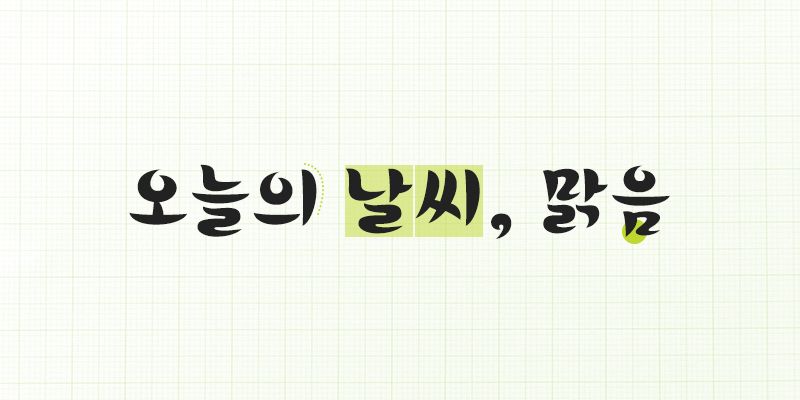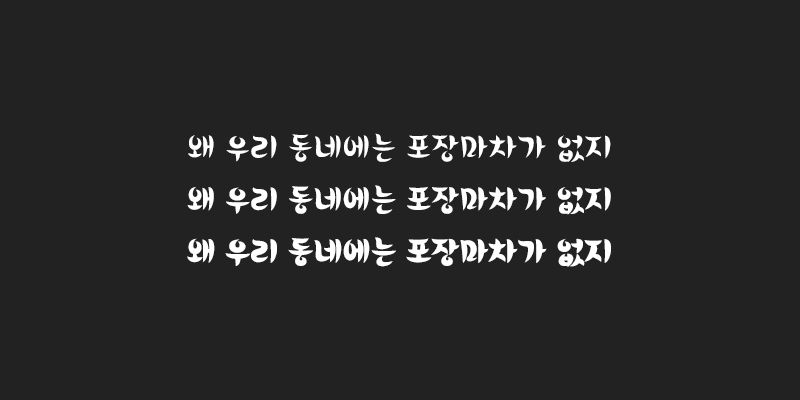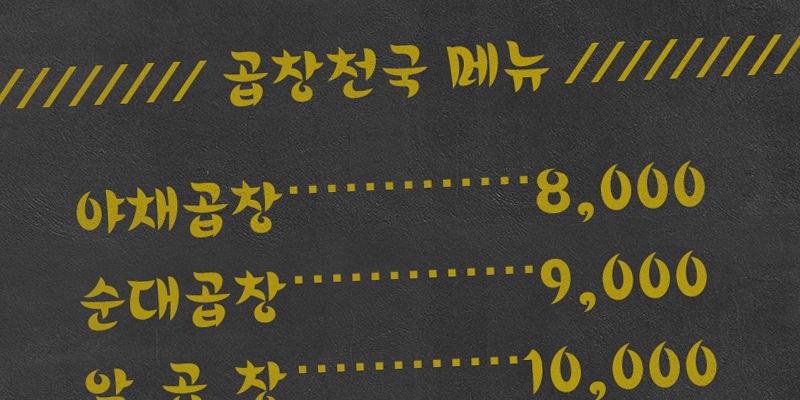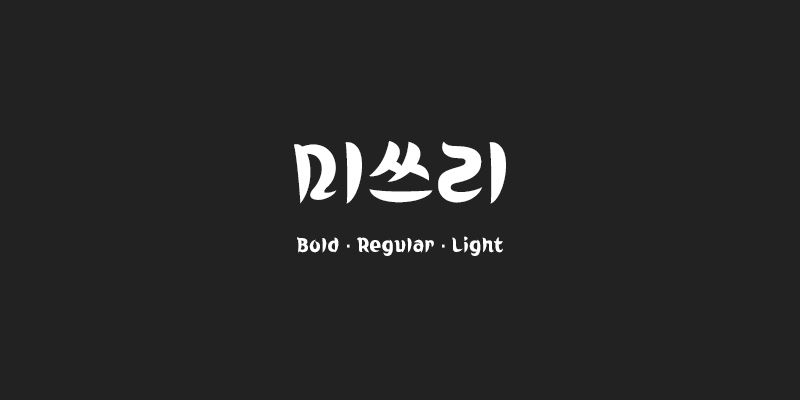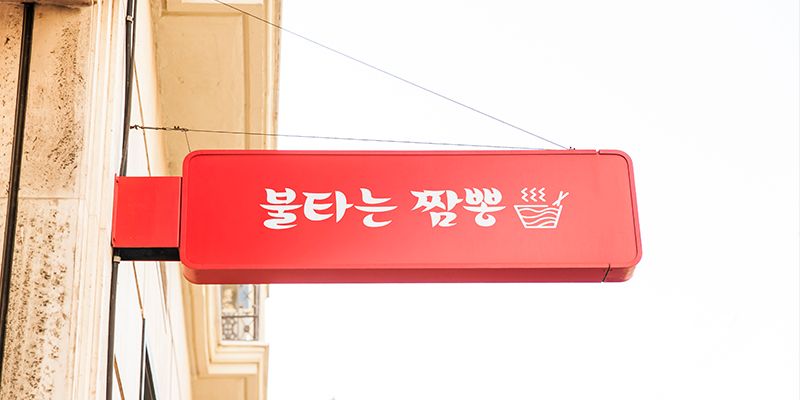
210 Misslee is an expressive font in a retro style. Each stroke was designed to be as thick as possible in the available space. The powerful curves of the letterforms add to the sharp and intense feeling, and some strokes are not fully connected in order to express the way letters are quickly written by hand.